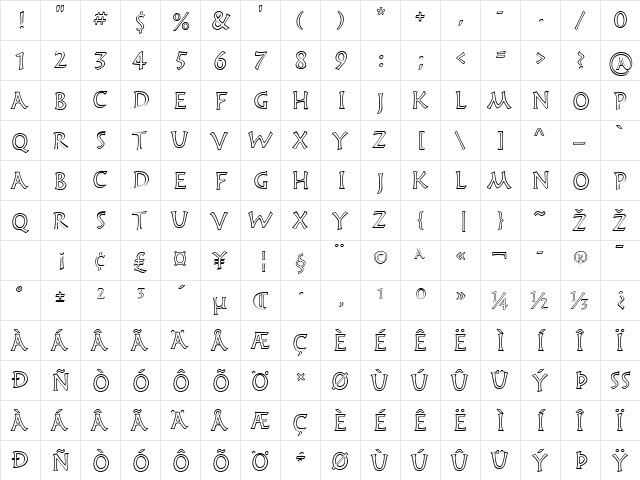
Frutiger Capitalis Outline
| Foundry | Linotype GmbH |
| Designer | Adrian Frutiger |
Design Context for Frutiger Capitalis Typeface
Frutiger Capitalis brings ornamental detail and strong personality to headlines and identities, where visual impact matters more than quiet functionality.
Font Pairing: Pair with a clean neutral sans-serif for body copy to let Frutiger Capitalis's character lead without overwhelming the composition.
Pro Tip: Use Frutiger Capitalis exclusively at display sizes — it was designed to be seen, not read at length. Let a neutral companion handle body copy.